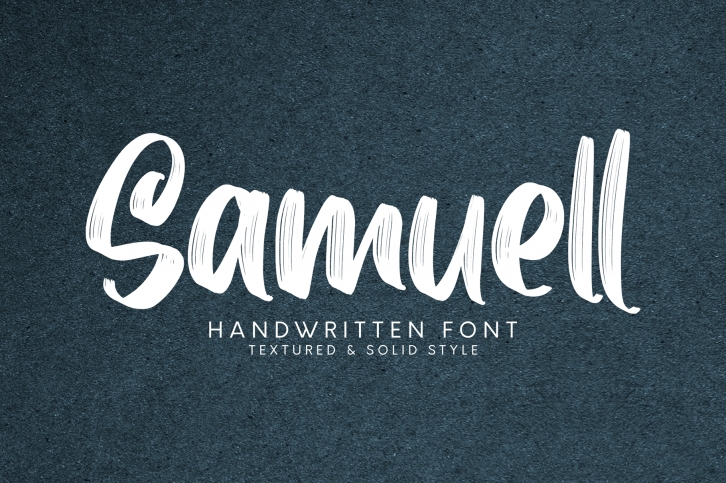
Samuell is a great font that was designed by Omotu. Imagine the amount of combinations you can create using this font! The archive is 15.39 MB and it was released on January 26, 2020. Samuell looks beautiful on wedding invitations, greeting cards, logos, posters, labels, t-shirt designs, logos, business cards and is perfect for use in ink or watercolor works, fashion, magazines, packaging and food menus, children's books and more!